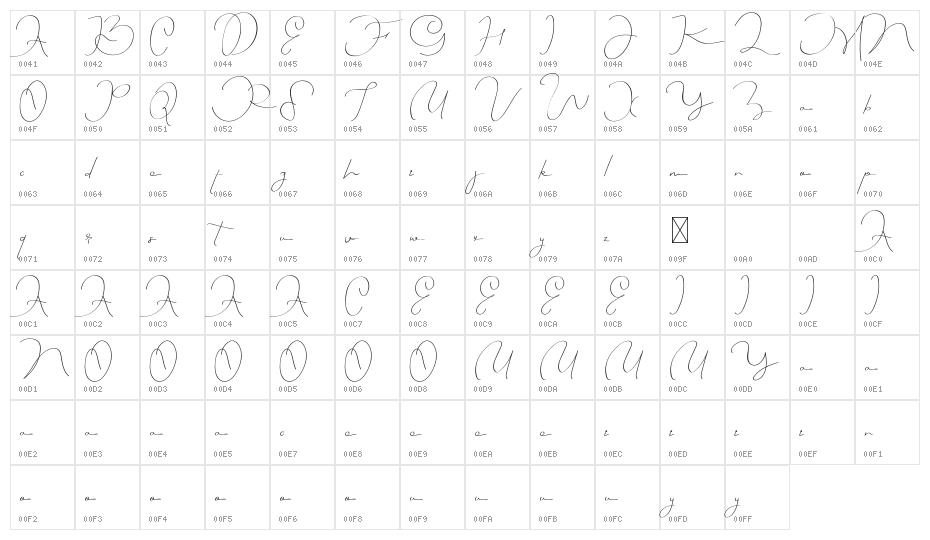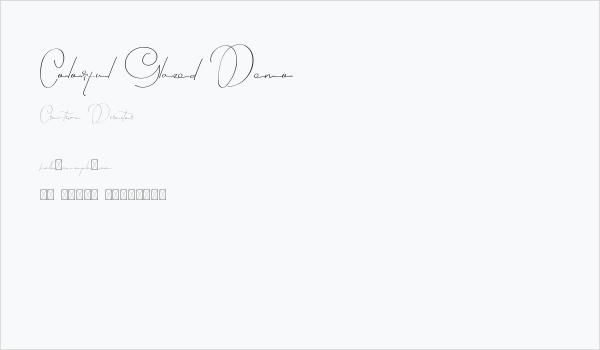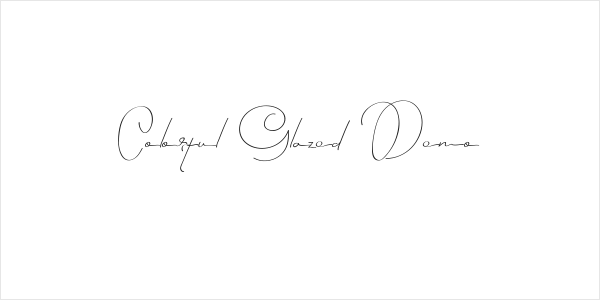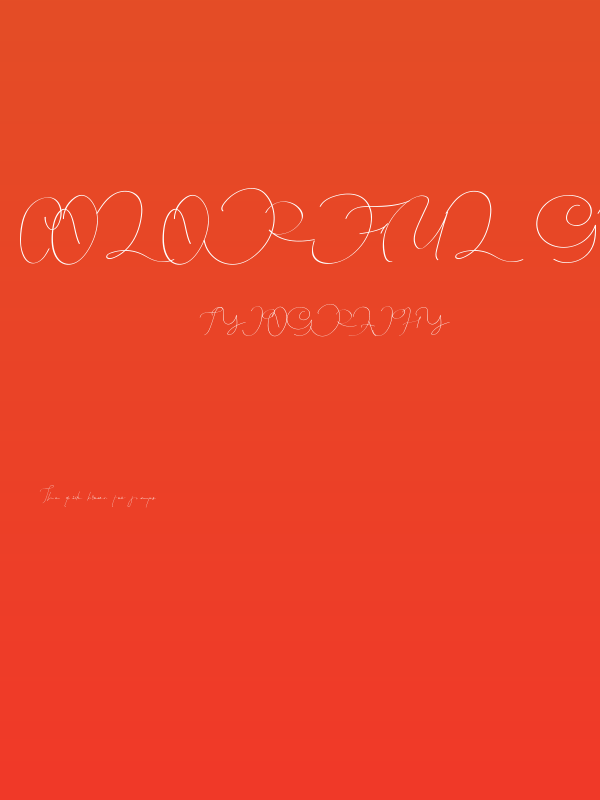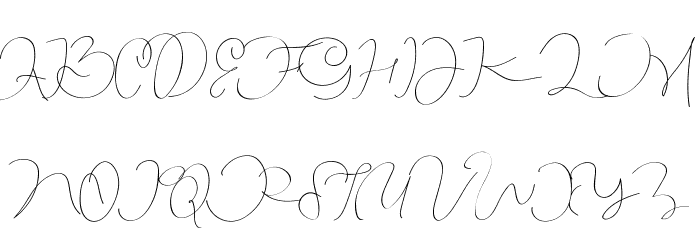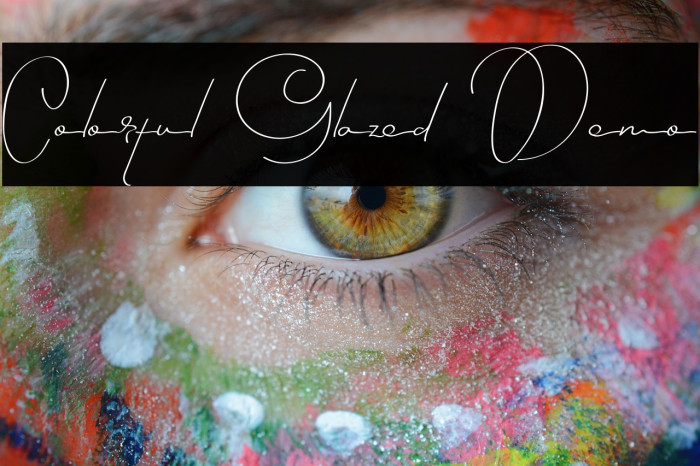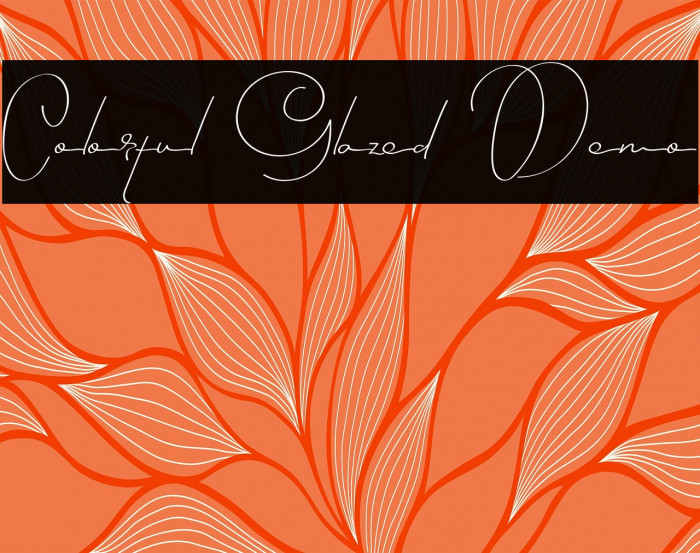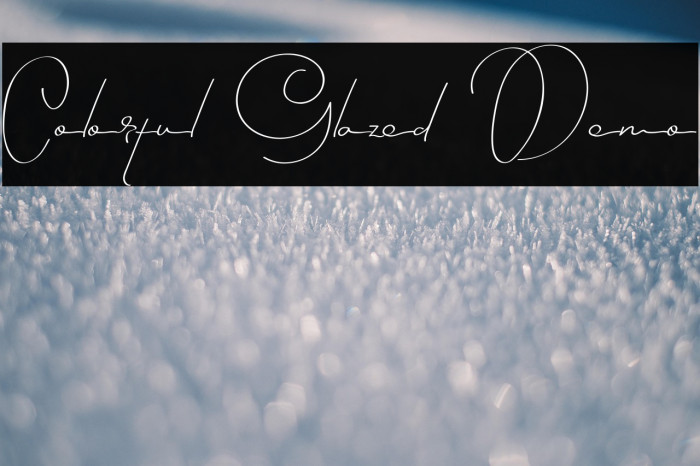
Colorful Glazed Demo Font
Colorful Glazed Demo Description
This font features an elegant, flowing script style with a delicate and artistic flair. The characters are interconnected with smooth, sweeping lines that create a sense of movement and grace. The uppercase letters are particularly ornate, with loops and curves that add a decorative touch. The lowercase letters maintain a consistent style, with elongated ascenders and descenders that enhance the font's fluidity. The overall design is sophisticated and stylish, making it suitable for projects that require a touch of elegance and creativity.
| Proposed Projects | Ideal for wedding invitations, elegant branding, greeting cards, and artistic projects. |